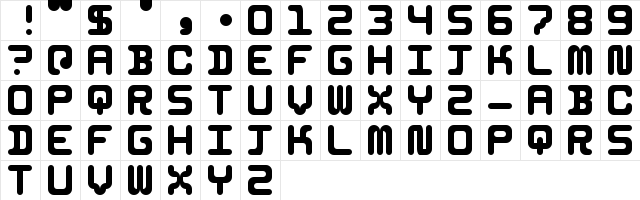
5Identification Mono Regular
| Designer | Noah - 11 year old typomaniac |
Design Context for 5Identification Mono Typeface
5Identification Mono uses fixed-width spacing throughout, giving it the structured, systematic character associated with coding environments and technical documentation.